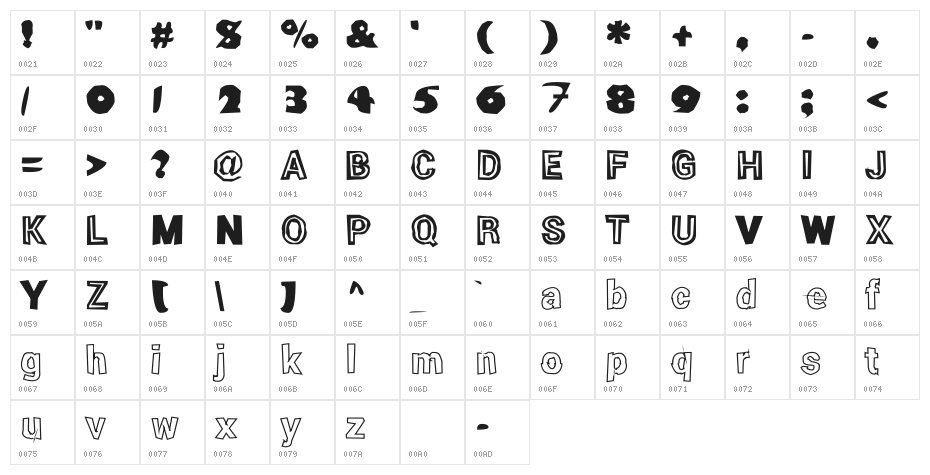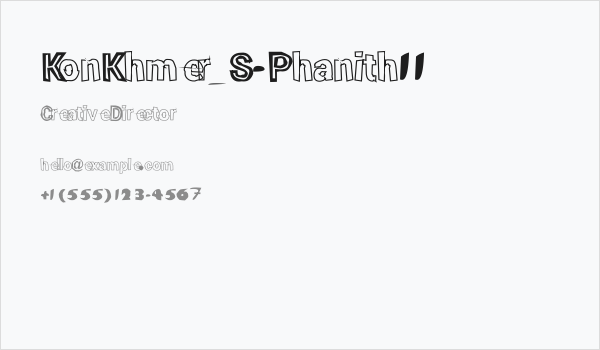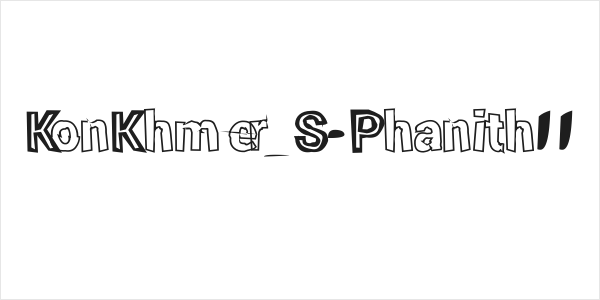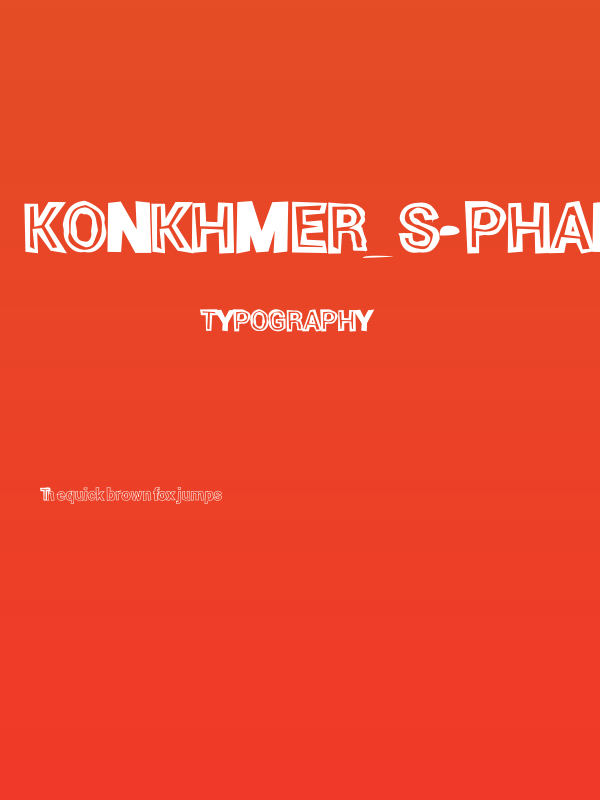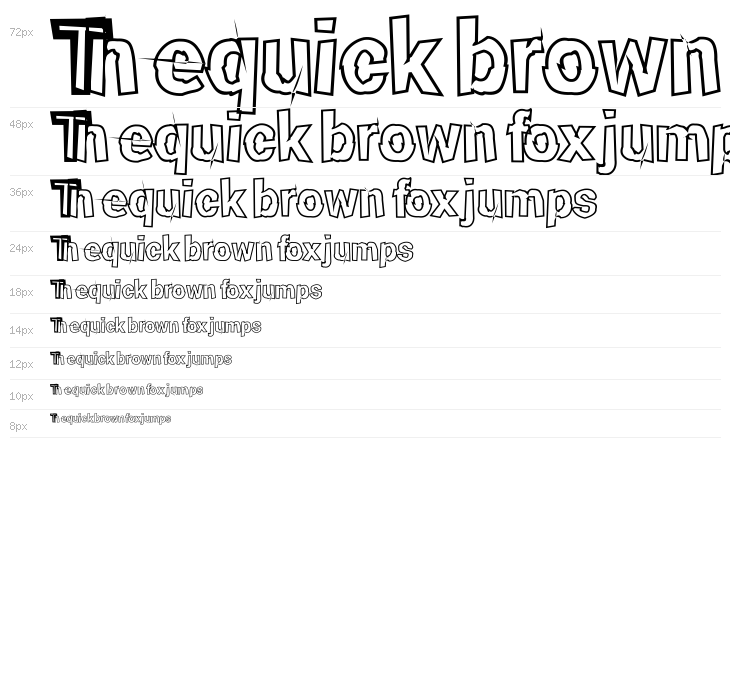
KonKhmer_S-Phanith11 Font
KonKhmer_S-Phanith11 Description
This font features a bold and playful design with a hand-drawn aesthetic. The characters are outlined with a thick, uneven stroke, giving them a dynamic and slightly chaotic appearance. The uppercase and lowercase letters maintain a consistent style, with exaggerated curves and angles that add to the whimsical feel. Numbers and special characters follow the same design principles, ensuring a cohesive look across all elements. The font's irregular shapes and bold presence make it ideal for projects that require a fun and eye-catching typeface.
| Overall Style | Playful, Hand-drawn, Dynamic |
| Use Case | Headlines, Posters, Branding |
| Proposed Projects | Ideal for children's book covers, playful posters, creative branding, and any project that requires a fun and engaging typeface. |